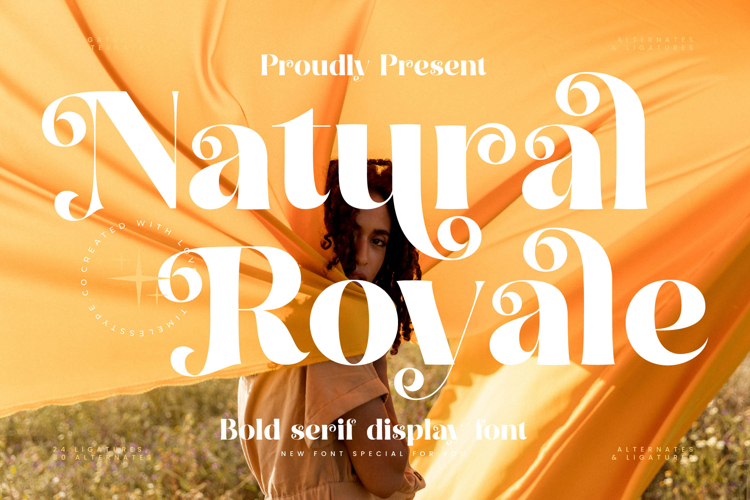
Natural Royale - Bold Serif Display Font
Natural Royale is a bold serif display font that radiates luxury, charm, and expressive artistry. With its thick strokes, high-contrast serifs, and decorative swashes, this typeface strikes the perfect balance between bold impact and refined elegance. Designed with 24 ligatures and 80 alternates, Natural Royale offers designers the flexibility to create unique, dynamic typography that feels luxurious, stylish, and unforgettable.
This font is designed to excel in headline typography, where its bold weight and dramatic alternates make an immediate statement across posters, banners, and editorial spreads. In branding and logo design, Natural Royale conveys exclusivity and prestige, making it ideal for fashion labels, beauty brands, artisanal products, and lifestyle businesses aiming for a premium identity. Its ornamental style also makes it highly effective in packaging design, particularly for cosmetics, wine, jewelry, and luxury goods where typography is central to the storytelling.
Natural Royale thrives in advertising campaigns, wedding invitations, and event promotions, where its expressive ligatures and alternates add refinement and personality. On social media and digital platforms, the font ensures clarity while enhancing layouts with high-fashion, editorial flair that resonates with modern audiences.
With multilingual support, Natural Royale adapts seamlessly to international projects, making it versatile for global branding and publishing.
Ultimately, Natural Royale is more than a font—it is a visual signature of elegance, strength, and creativity. Whether used in editorials, branding, packaging, or advertising, it ensures every project radiates sophistication, artistry, and timeless beauty.